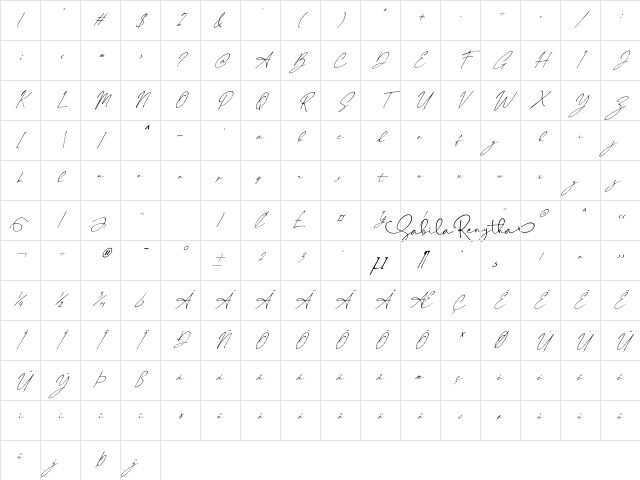
Complete Sabila Renytha PERSONAL USE Italic glyph index. Displaying only characters natively supported by Sabila Renytha PERSONAL USE Italic font.
Sabila Renytha PERSONAL USE is a composed and adaptable typeface that performs quietly and consistently across a wide range of design contexts. The slanted form adds forward momentum and visual energy.